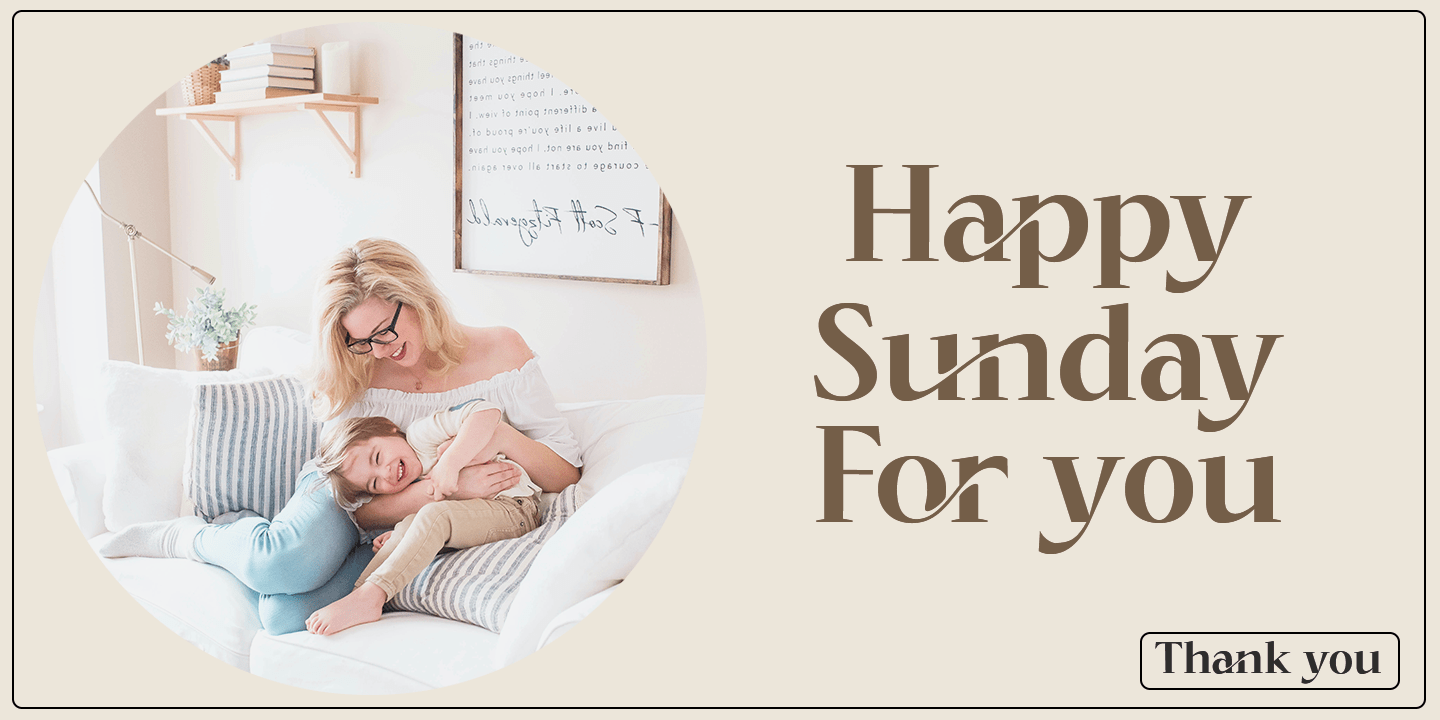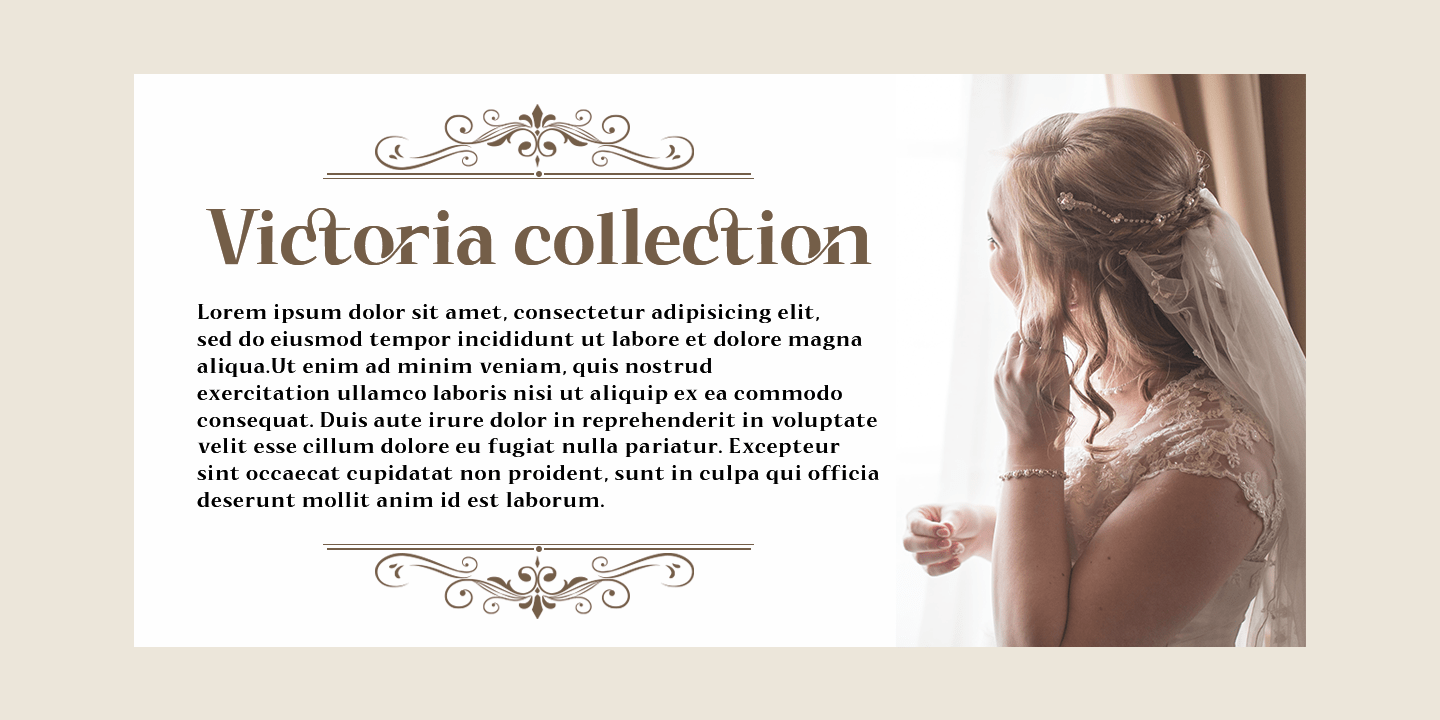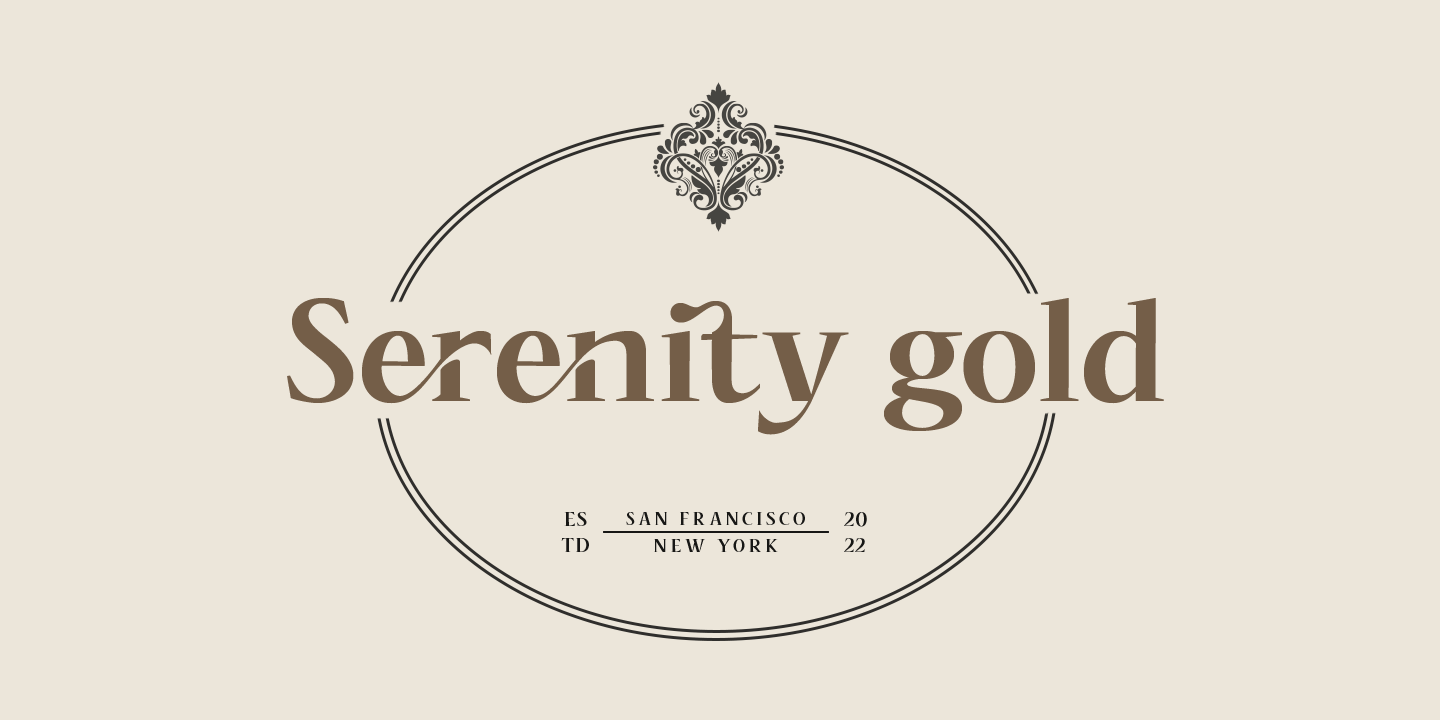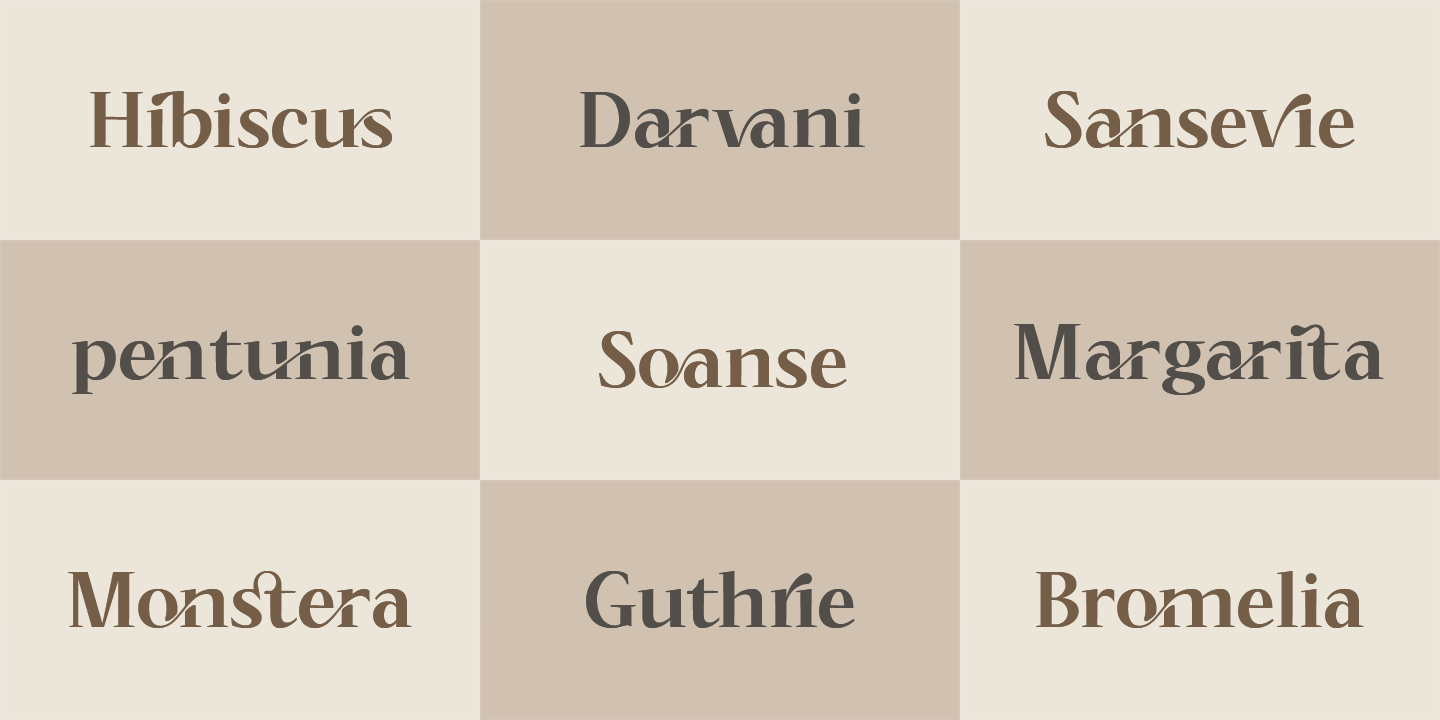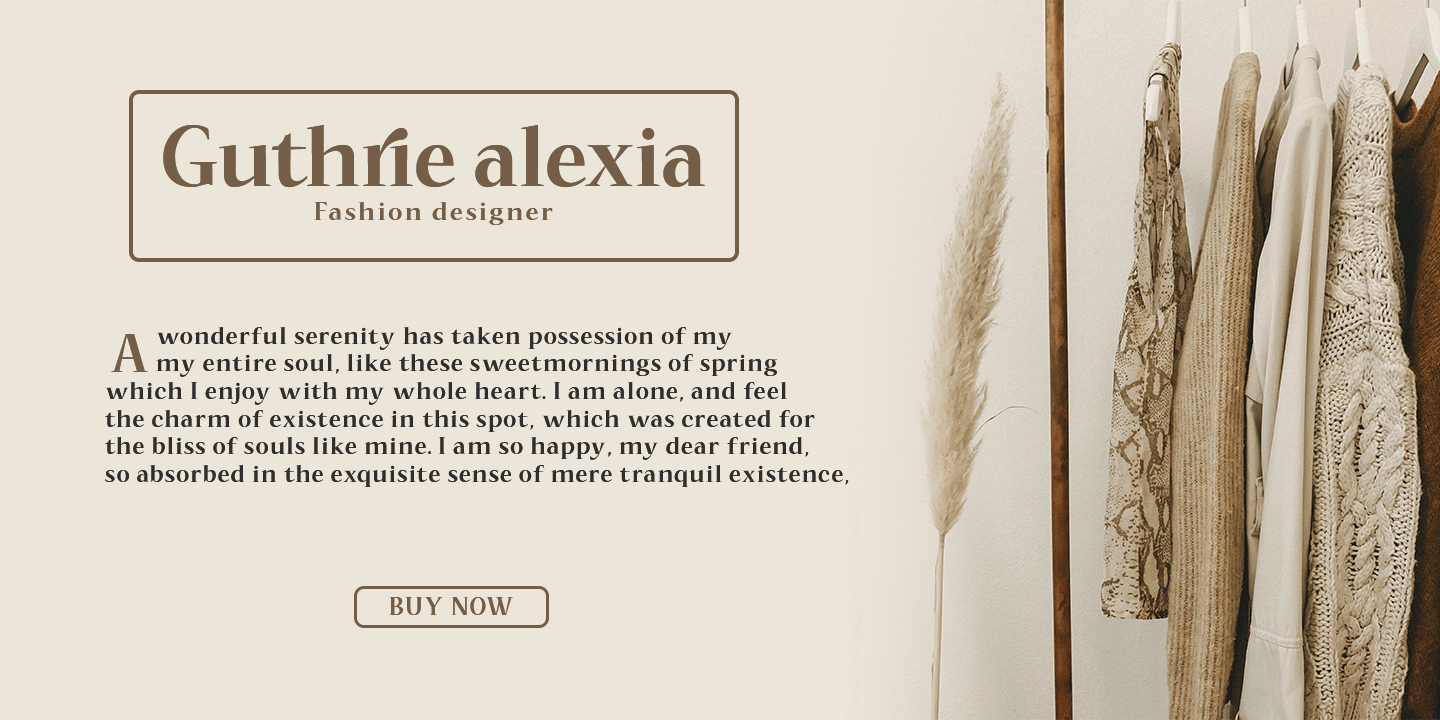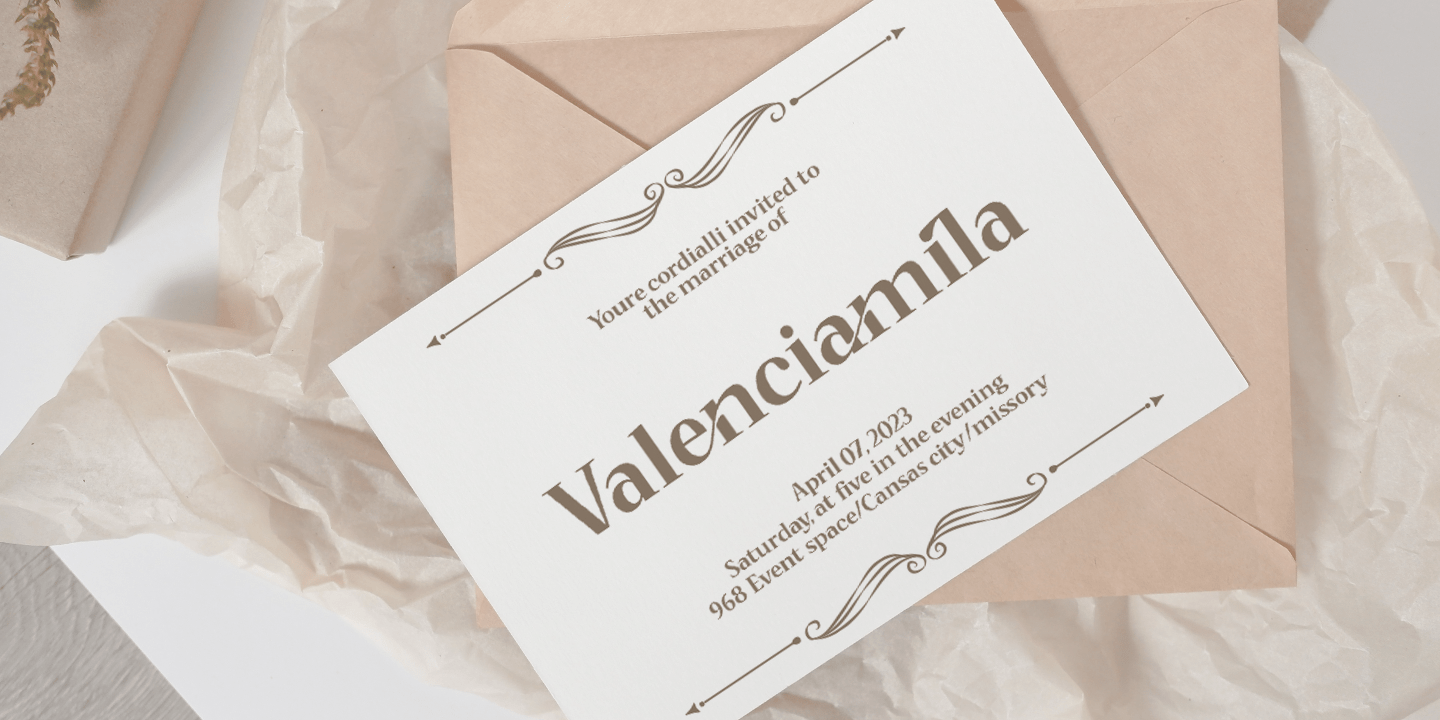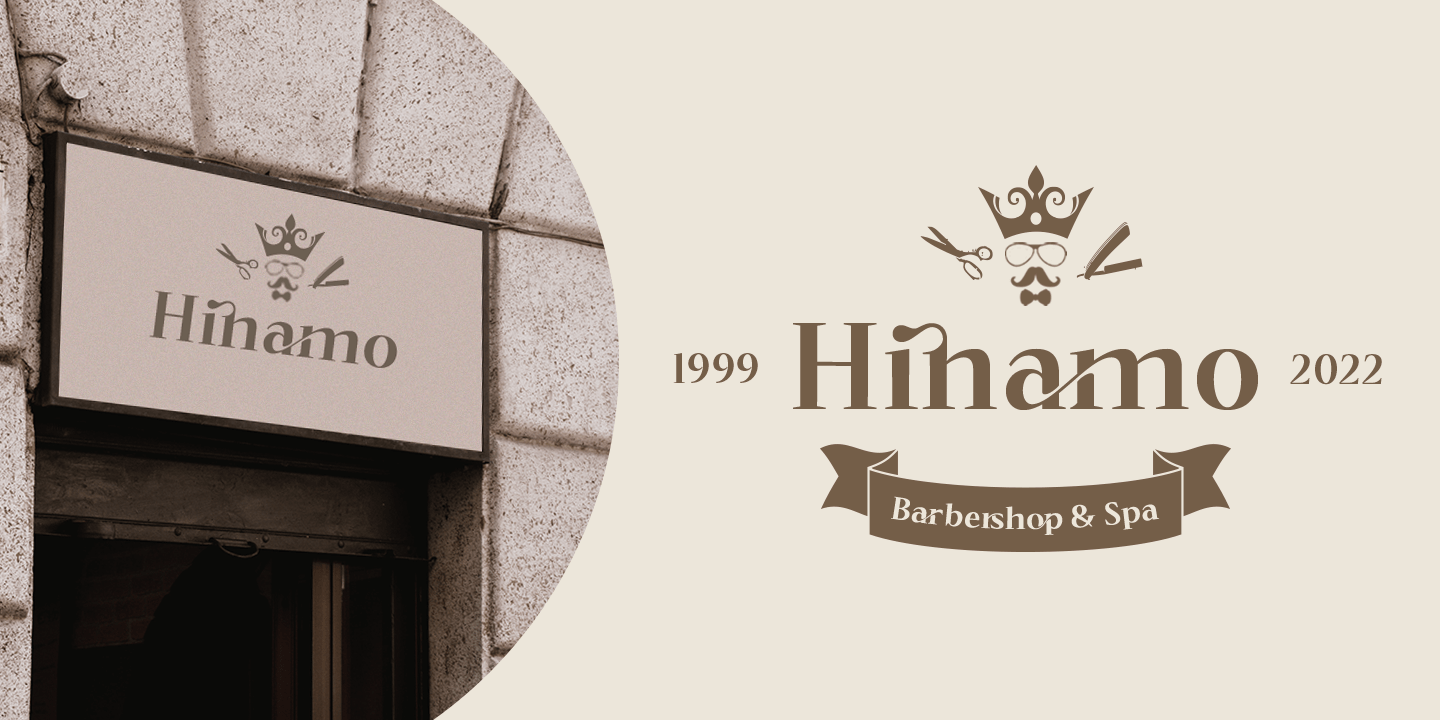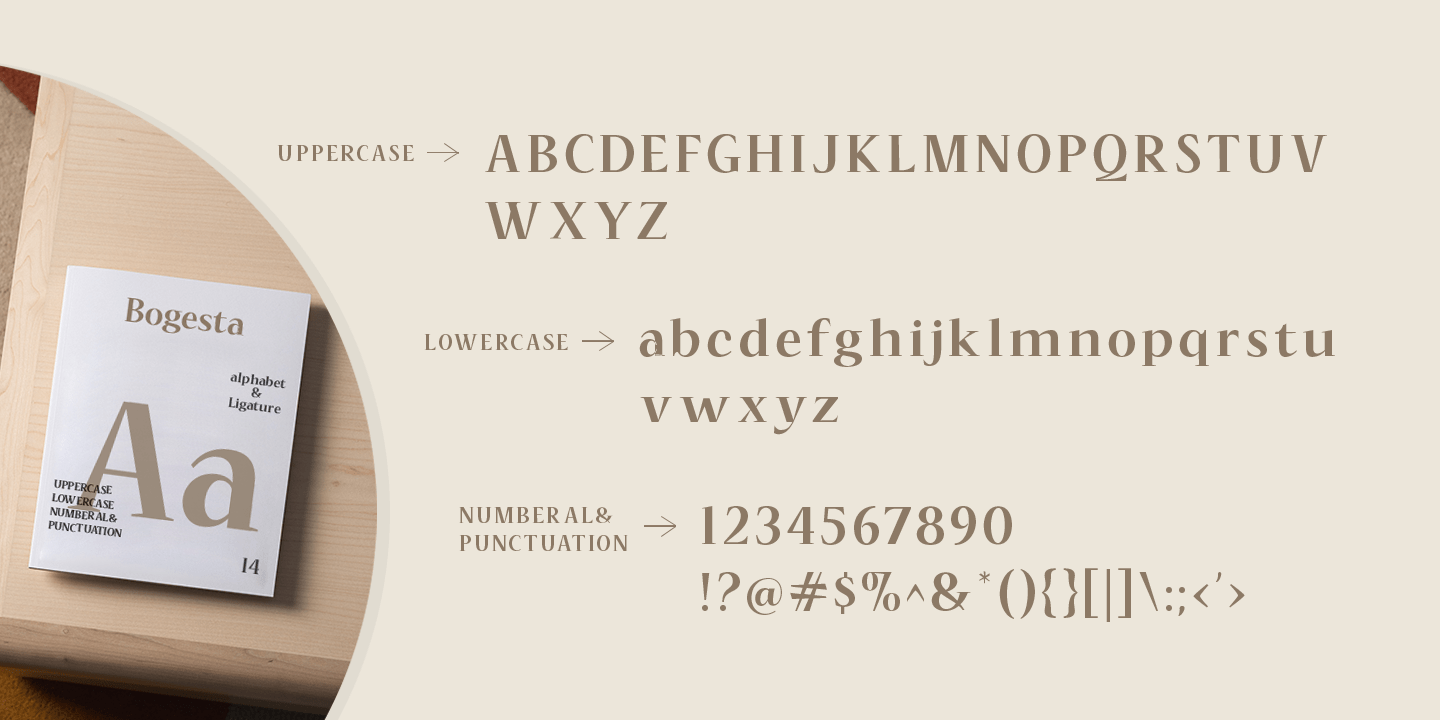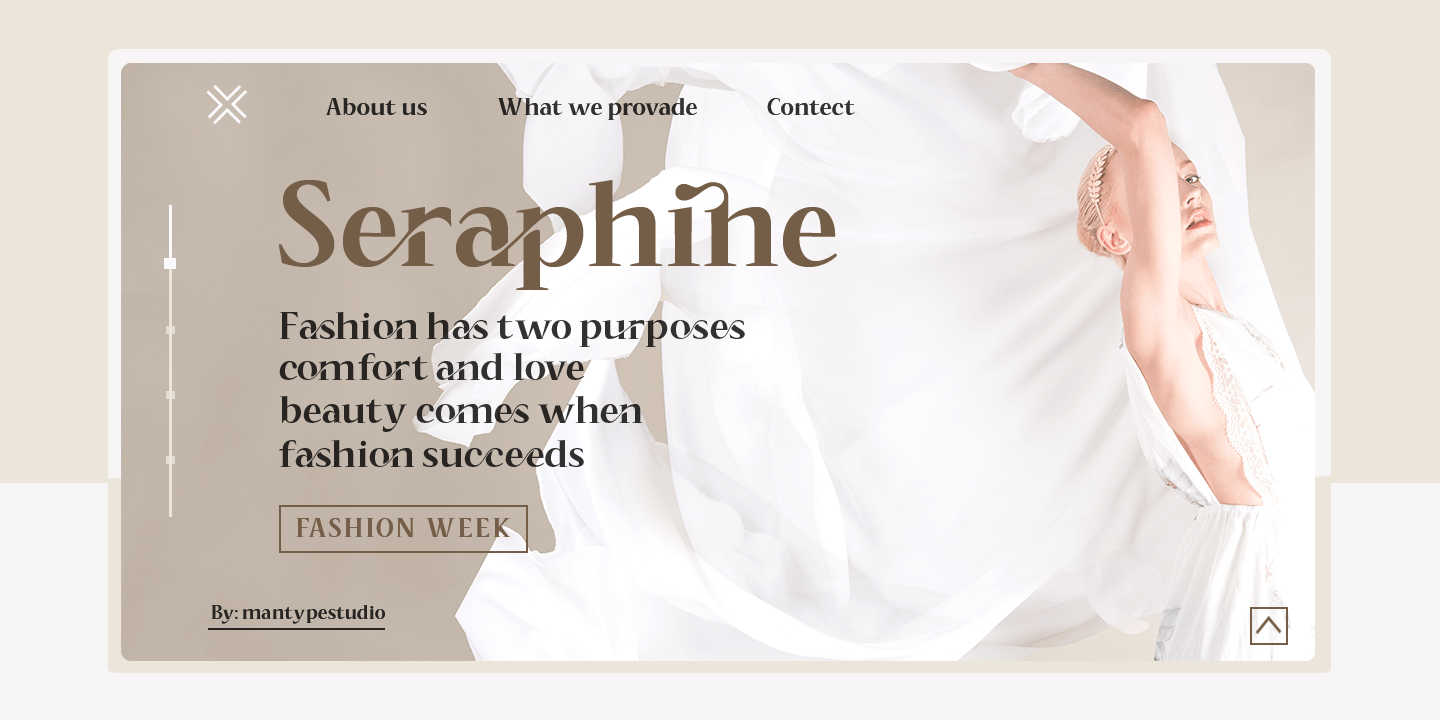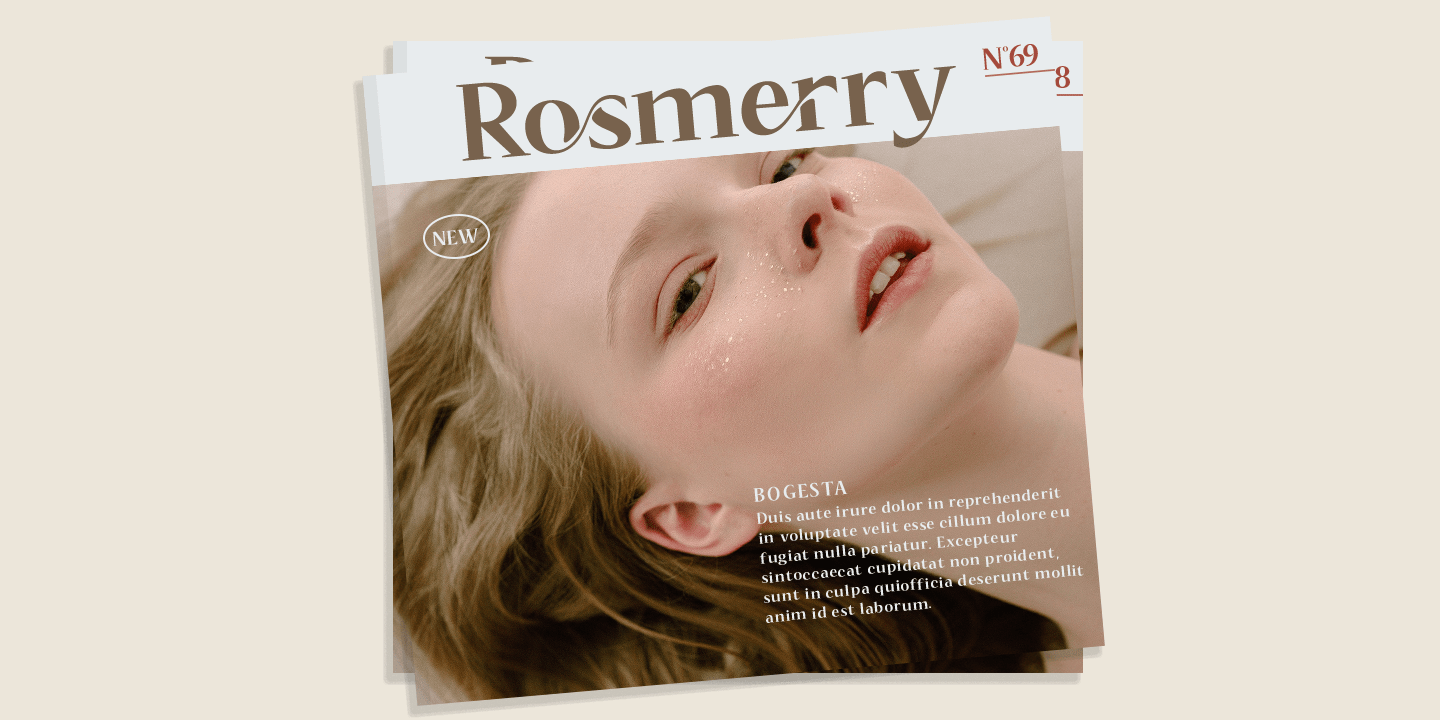
Bogesta
Bogesta Typeface - A stylish OpenType font with rich serifs featuring letters that appear to dance and spin harmoniously - creating a unique & elegant typographic design.
The variety of connected ligature options and OpenType alternatives means many choices and variations in your final appearance.